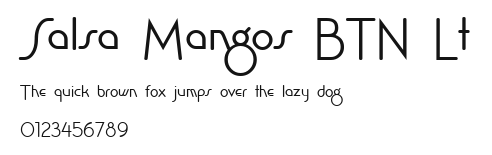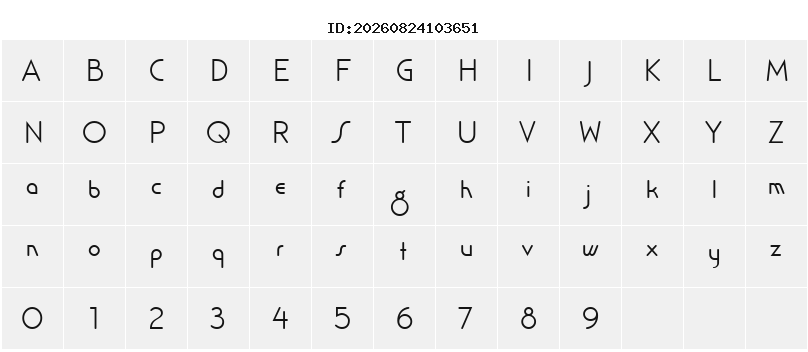
Salsa Mangos BTN Lt Preview
• Font Name: Salsa Mangos BTN Lt
• Full Font Name: Salsa Mangos BTN Lt
About Salsa Mangos BTN Lt.ttf
Salsa Mangos BTN Lt.ttf is a modern, elegant sans-serif font designed for ultimate readability and visual harmony. Perfect for branding, headlines, web design, and print materials.